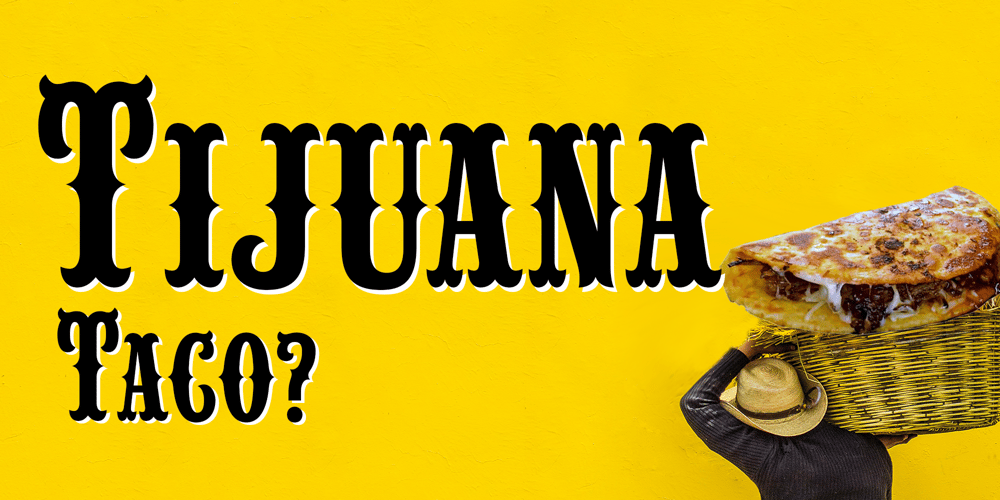
Tijuana Taco Font Family was designed by Michael Hagemann and published by FontMesa. Tijuana Taco contains 4 styles and family package options. Tijuana is a spurred version of our Lynchburg font.Tijuana is perfect for any Mexican and or south western themed projects.Opening up a new Taco restaurant or Taco truck? Tijuana is ideal for signage to bring new customers in.Tijuana small caps version includes small caps ampersand, exclamation and question marks.You will need an application that supports Opentype features to access the alternate glyphs in Tijuana Taco.Tijuana Taco is a trademark of Fontmesa LLC